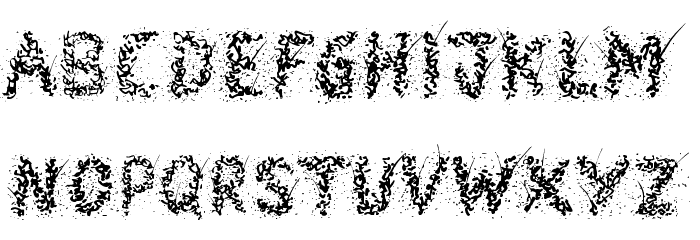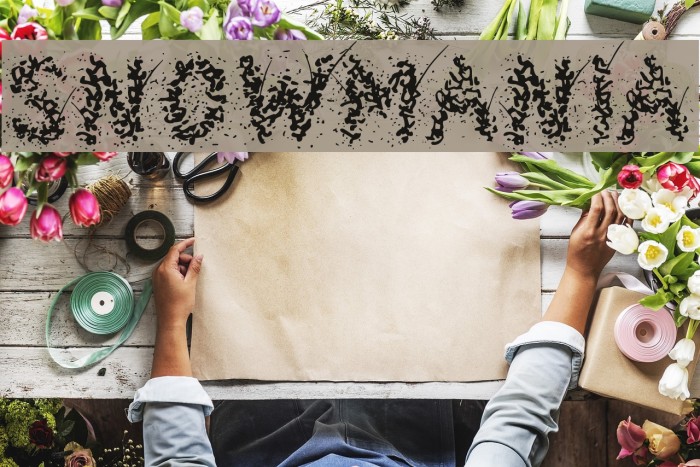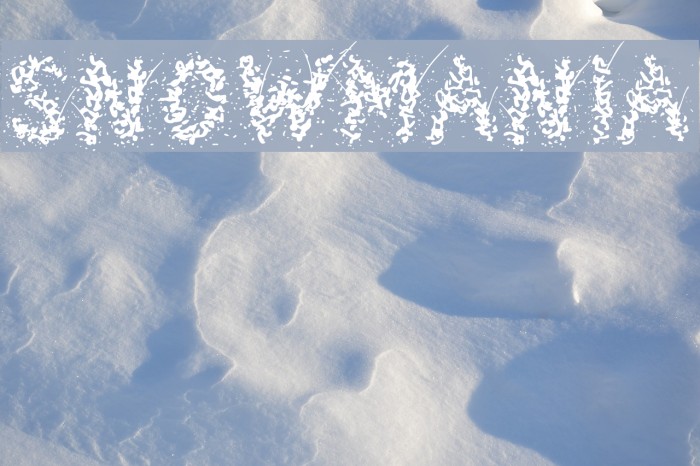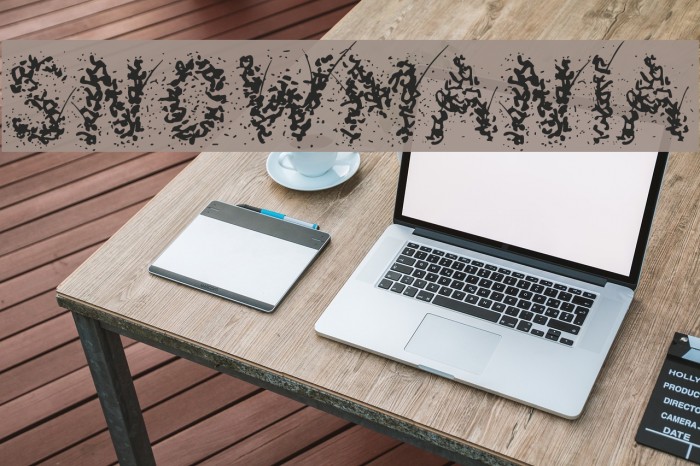
Snowmania Font
This font features a unique and intricate design, resembling a flurry of snowflakes or particles forming each letter. The characters are composed of numerous small elements that create a textured and dynamic appearance. This style gives the font a whimsical and playful feel, making it stand out with its decorative and artistic flair. The font maintains a consistent structure across both uppercase and lowercase letters, ensuring readability despite its complex design. The overall effect is eye-catching and suitable for creative projects that require a touch of elegance and uniqueness.
A decorative font with a snowflake-like, textured design.
- Proposed Projects: Ideal for holiday-themed designs, greeting cards, winter event invitations, and creative branding projects.